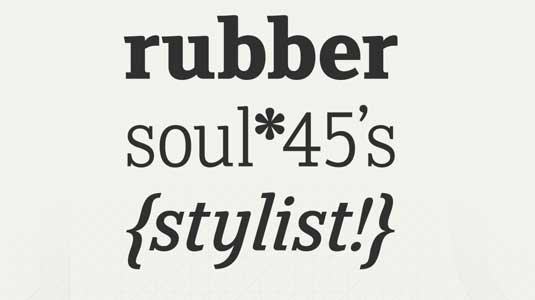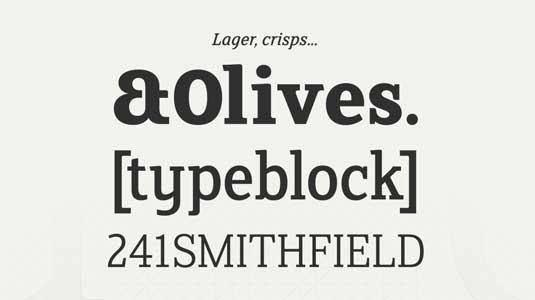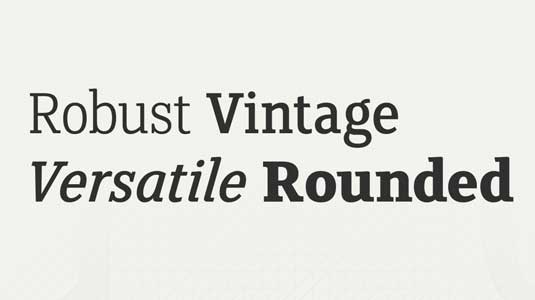
Font of the day: FS Clerkenwell
FS Clerkenwell from Fontsmith
Home to more creative businesses and architects per square mile than anywhere else on the planet, Clerkenwell – a central area of London – is a true design hub. Today, Clerkenwell Design Week kicks off and one of its long-standing residents, leading type foundry Fontsmith, is celebrating with a brilliant typography offer.
The Fontsmith team created FS Clerkenwell in 2003, after designer Ian Whalley walked the streets of Clerkenwell, capturing the fragments of conversations he heard on the streets.